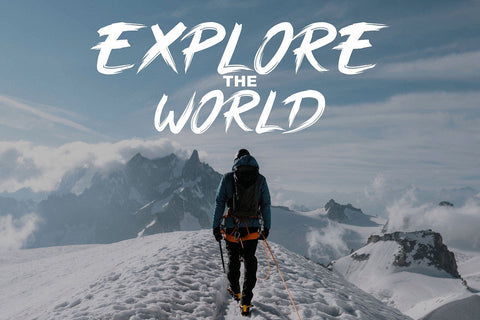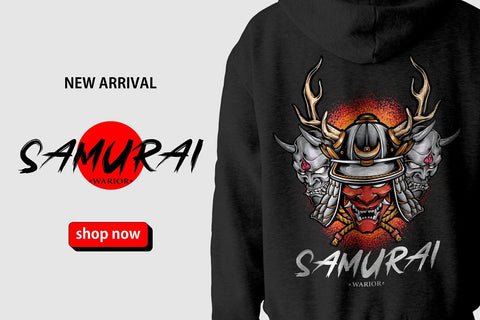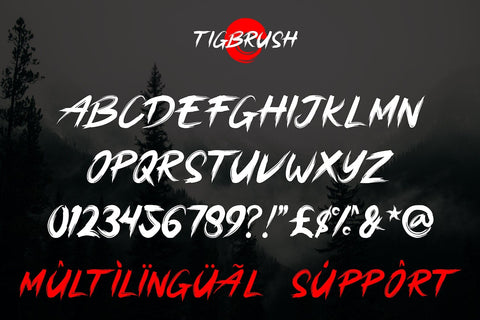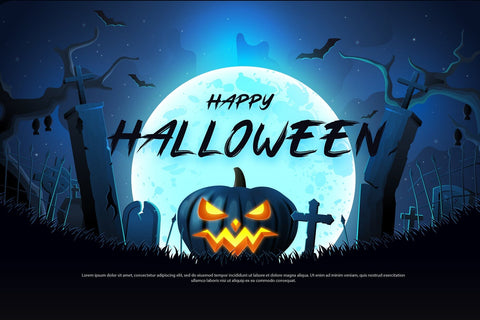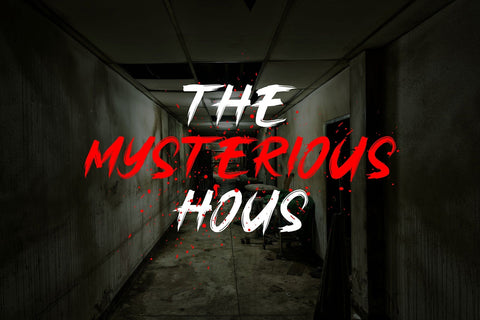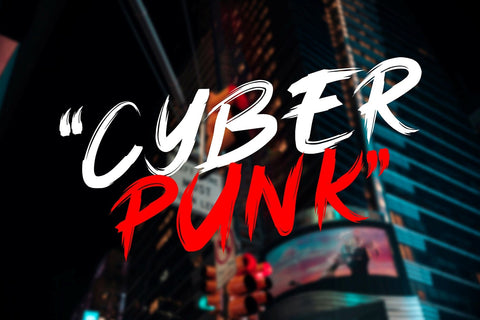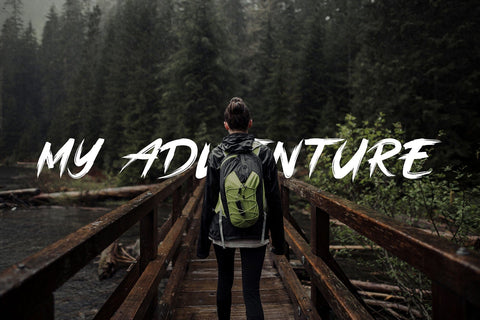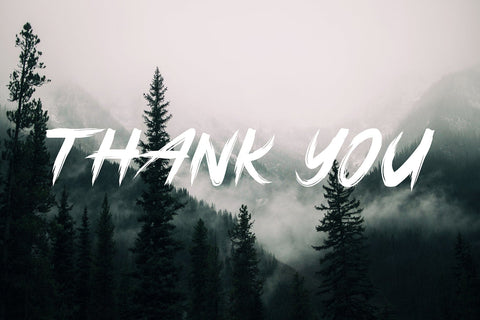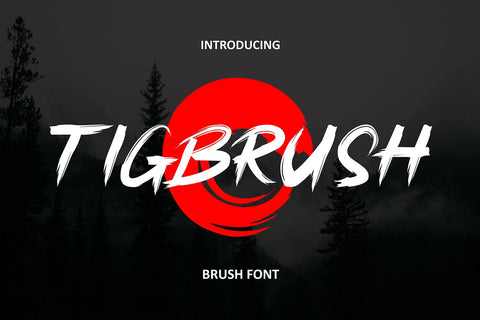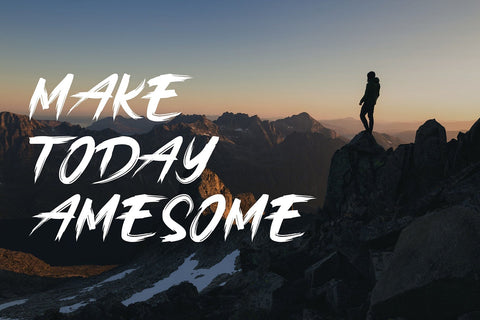
Tigbrush - Simple Brush Font
"Tigbrush" is a simple and realistic brush font that adds an authentic touch to your designs. Perfect for headlines and various design projects, its natural brush strokes create a versatile and captivating typographic element. With its effortless charm, "Tigbrush" brings a handcrafted feel without the need for actual brushwork.